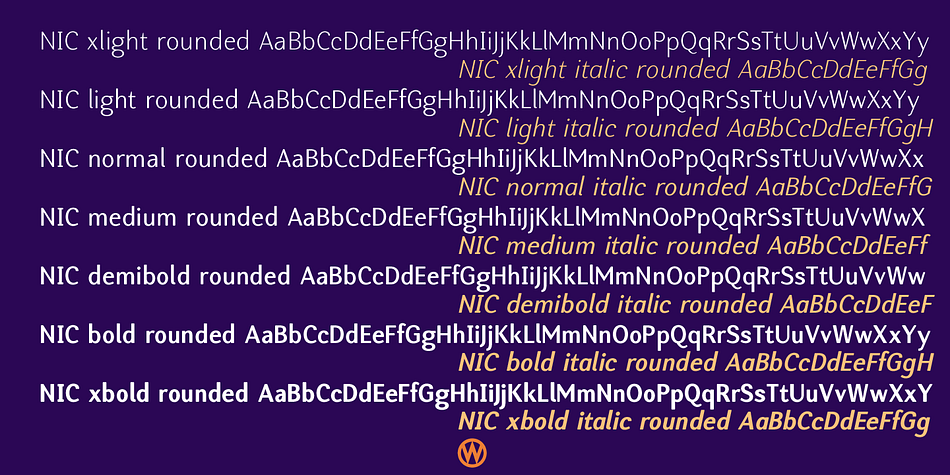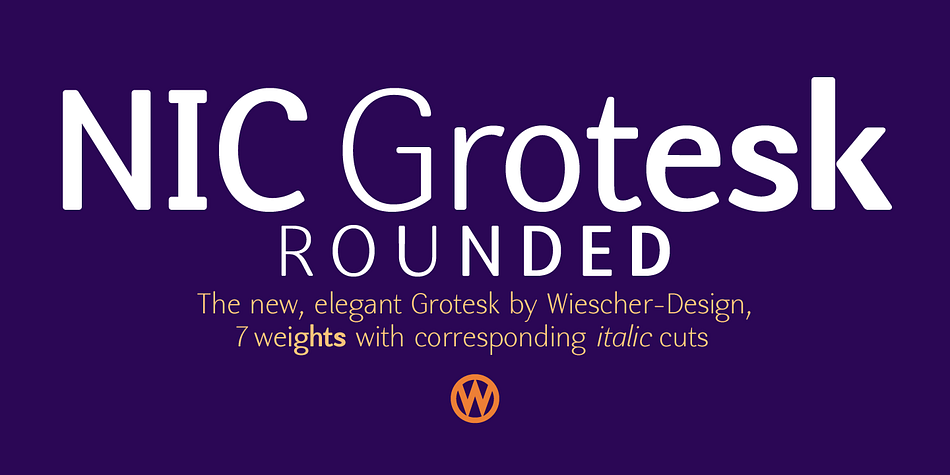
NIC
Designed by Gert Wiescher, NIC is a sans serif font family. This typeface has twenty-eight styles and was published by Wiescher-Design.
NIC like in scenic is a completely new very elegant grotesk font family that has nice contrast in the up and downstrokes.
NIC has its own, very special character. The font looks like it has been around forever but it is brand new, has new forms and new proportions that make it very, very readable.
NIC has a character set of 558 glyphs with the most important ligatures, four different sets of numerals, normal and medieval numbers aligned for tables as well as two sets of fitted numbers, superior-inferior-denominator and nominators, the font family comes in 7 weights with corresponding italic cuts with a normal and a rounded version each, all together 28 fonts.
NIC is a real qworkhorse designed for everyday use. Enjoy!